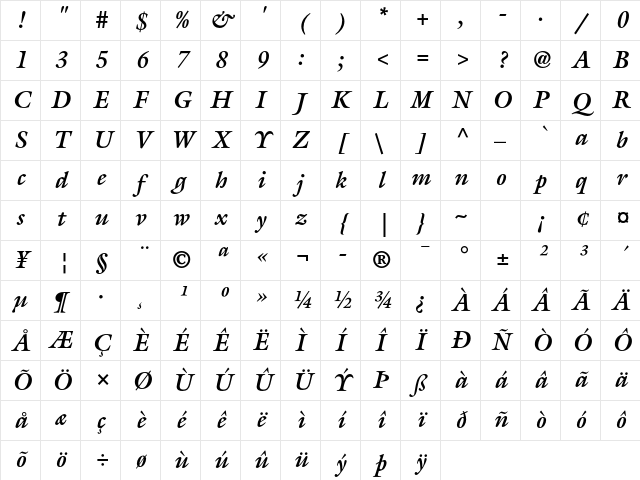
ITC Galliard Std Bold Italic
Designer: Matthew Carter
Design Context for ITC Galliard Std
ITC Galliard Std is a composed and adaptable typeface that performs quietly and consistently across a wide range of design contexts. The slanted form adds forward momentum and visual energy. Its bold stroke weight gives it real presence on the page.
Pro Tip: Use ITC Galliard Std for emphasis, pull quotes, and subheadings where its slanted energy can add rhythm to the layout.